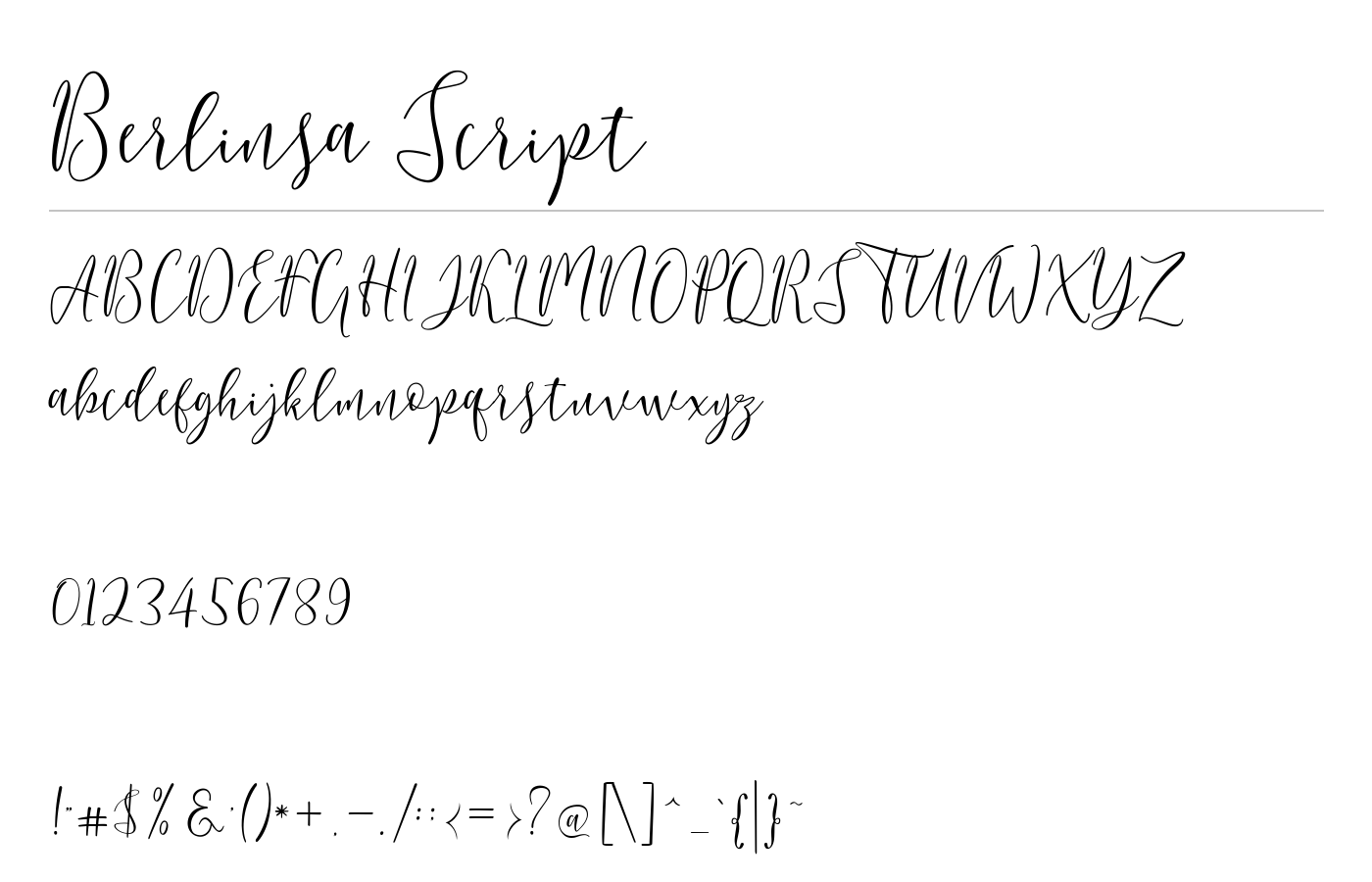
Berlinsa Script is a delicate and elegant handwritten font featuring slender, flowing strokes with a graceful, airy feel. Its fine lines and slightly whimsical letterforms create a sophisticated yet approachable style, making it ideal for wedding invitations, branding, and any design that seeks a personal, refined touch. This font works best in display settings where its charm and fluidity can truly stand out.
Berlinsa Script Font
About Berlinsa Script Font
| Font family | Berlinsa Script Font |
| Designer | Juni Fadil Putra |